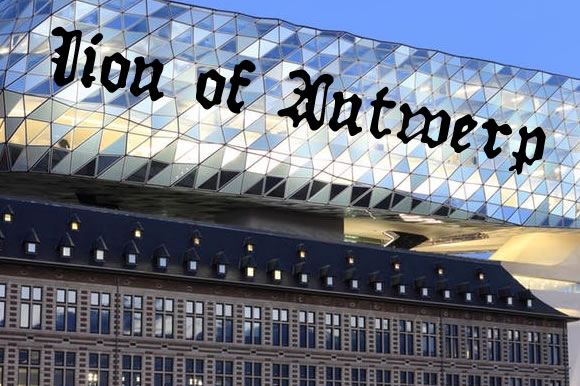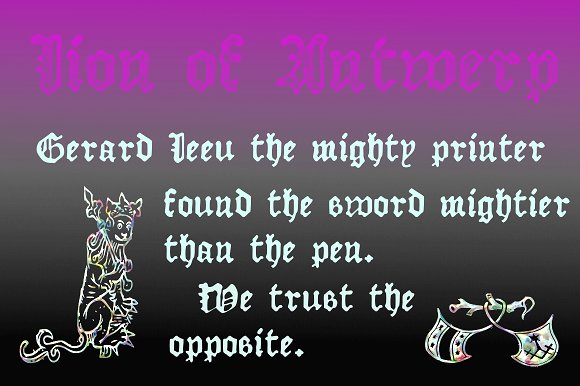
Lion of Antwerp Font
About Lion of Antwerp Font
This font is based on Gerard Leeu’s output. He was a printer based in Gouda and then Antwerp where he met his fate in 1492 in an altercation with one of his staff. This font contains both TTF and OTF formats in regular and bold weights with a full character map for the nearly 600 defined characters.
Why the Lion of Antwerp? In a nod to Gerard’s surname.